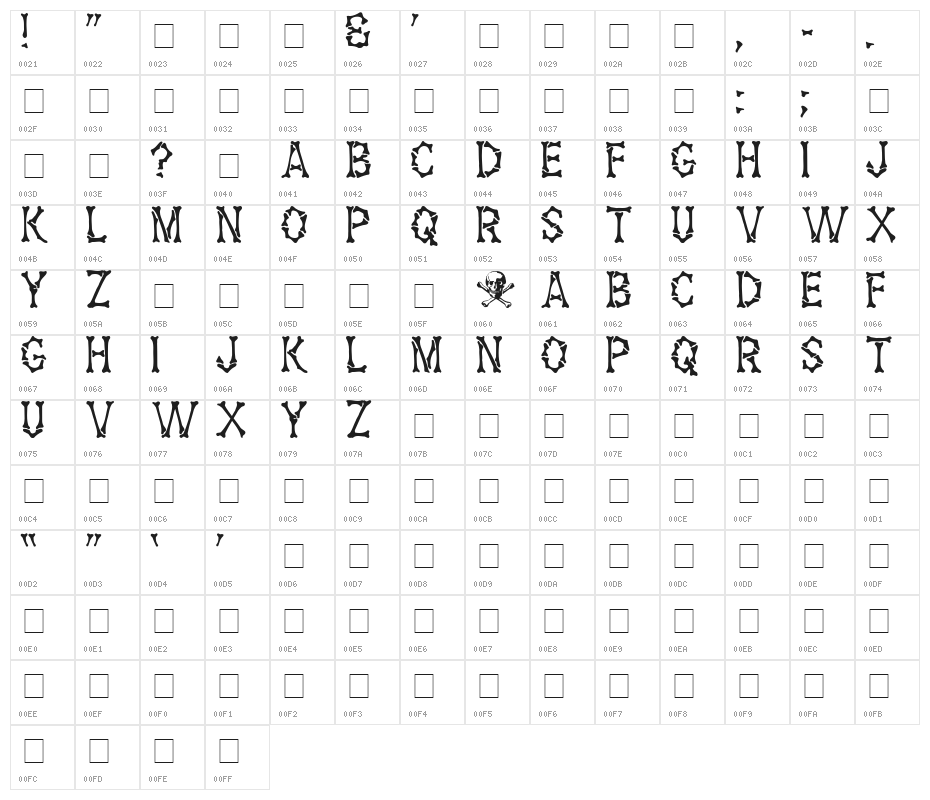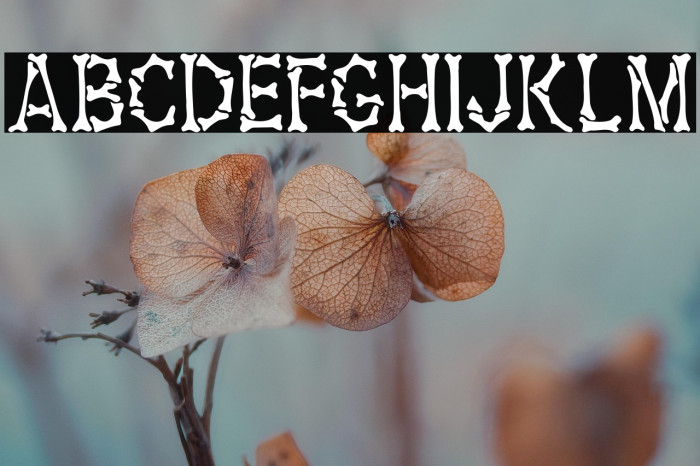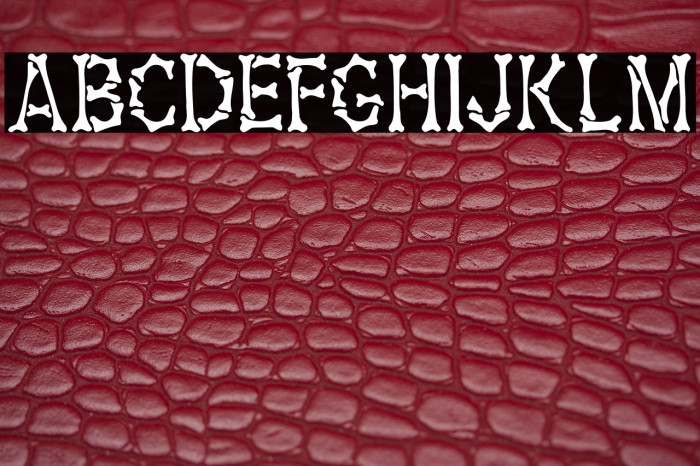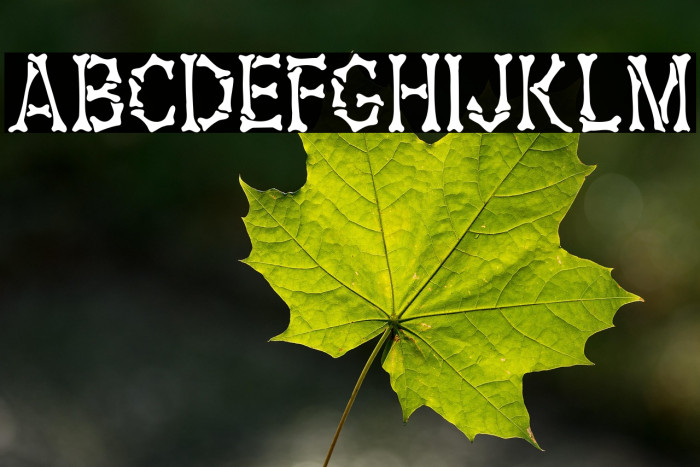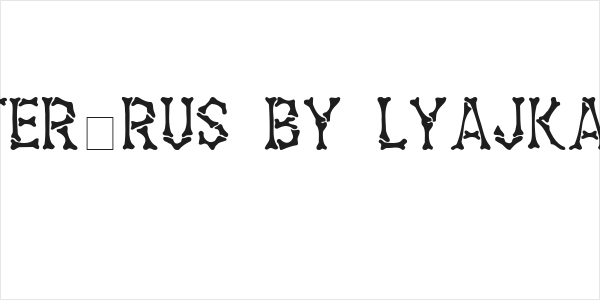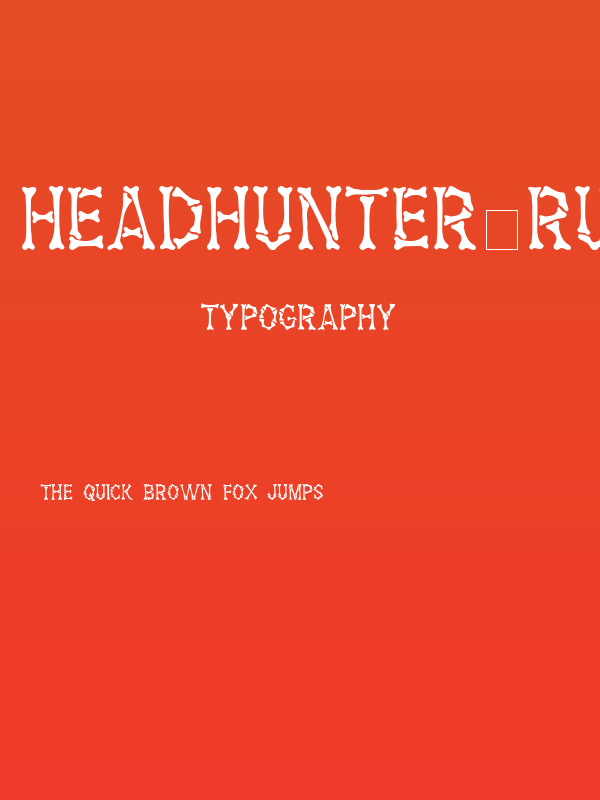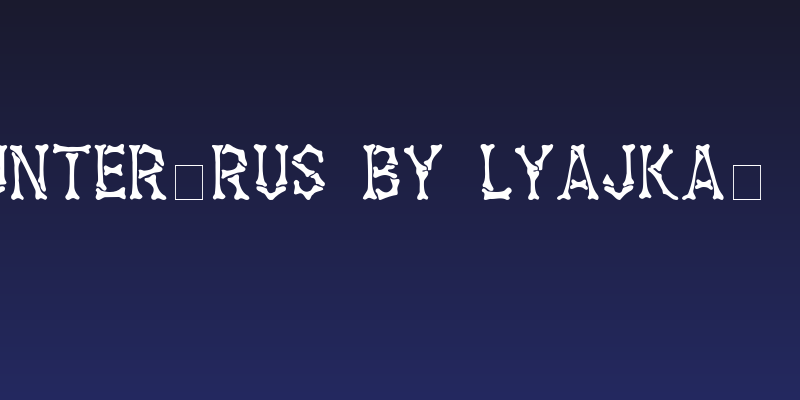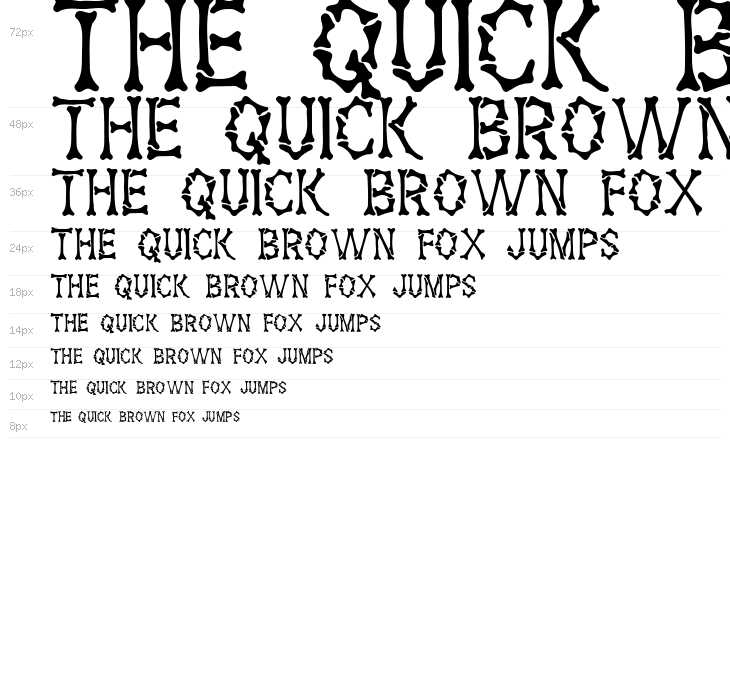
Headhunter(RUS BY LYAJKA) Medium Font
Headhunter(RUS BY LYAJKA) Medium Description
This font features a unique and edgy design, characterized by its bold and jagged letterforms that resemble sharp, angular shapes. The strokes are uneven, giving it a rugged and raw appearance, perfect for creating a sense of intensity and drama. The uppercase letters are particularly striking, with their pronounced edges and distinctive style. This font is ideal for projects that require a bold statement or a touch of the unconventional. Its decorative nature makes it suitable for headlines, posters, and other creative designs where a strong visual impact is desired.
| Proposed Projects | Ideal for use in posters, album covers, video game titles, and any project needing a bold, edgy aesthetic. |